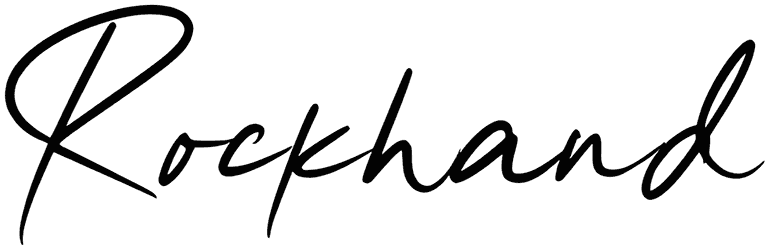
Rockhand Font
Rockhand is a script font that is really perfect for your graphic projects and allows you as a professional designer to create glorious artwork such as web pages, product packaging, magazines, brochures, and branding.
With the help of cursive design and accurate rounded curves, it can bring a sense of personalization, drama, softness, and delicacy. In case you need another high-end handwritten typeface, just take a look at our rich archive.